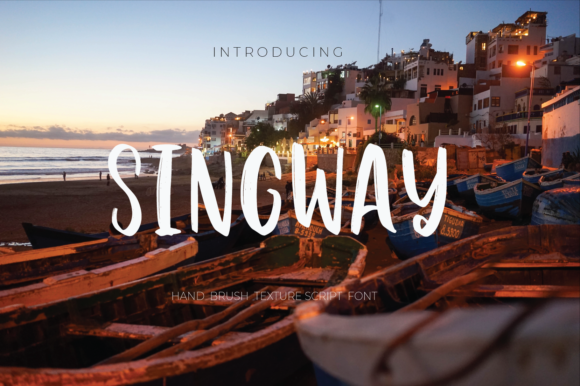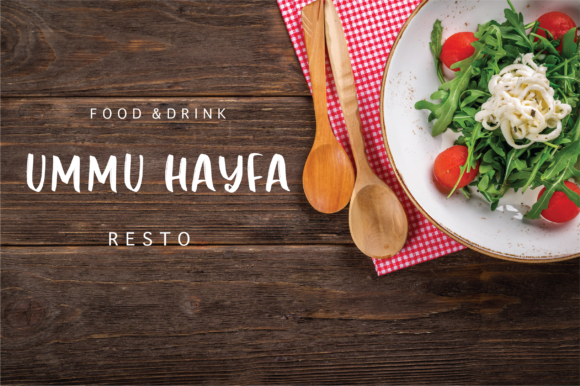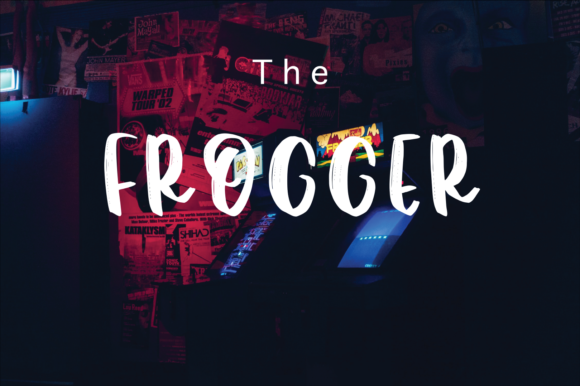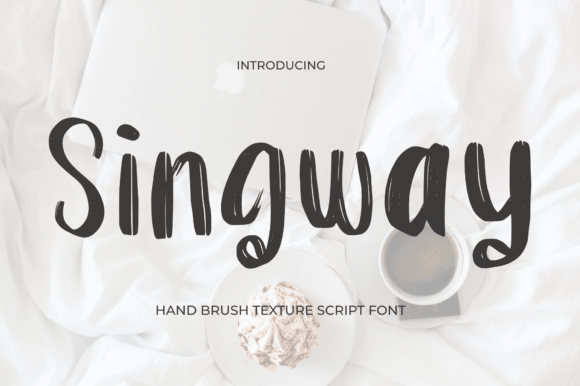
Introduction to Singway Font
Singway is a cool and casual handwritten font.
It works great on various designs that require a brushed, trendy touch Your options are limitless.
Singway Font offers exceptional quality and versatility, making it a valuable addition to your design toolkit. Whether you’re creating for personal projects or commercial use, Singway Font delivers professional results.